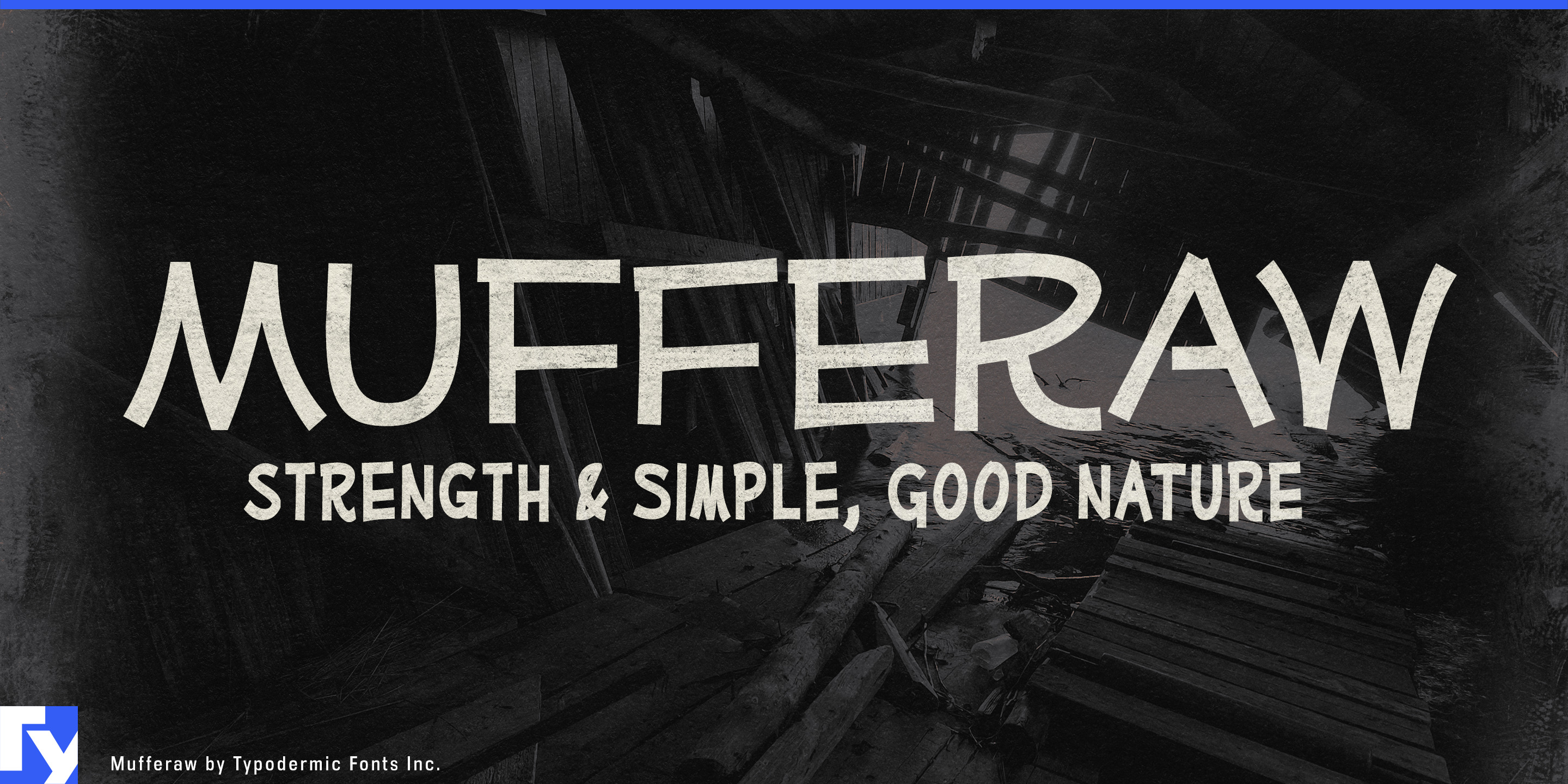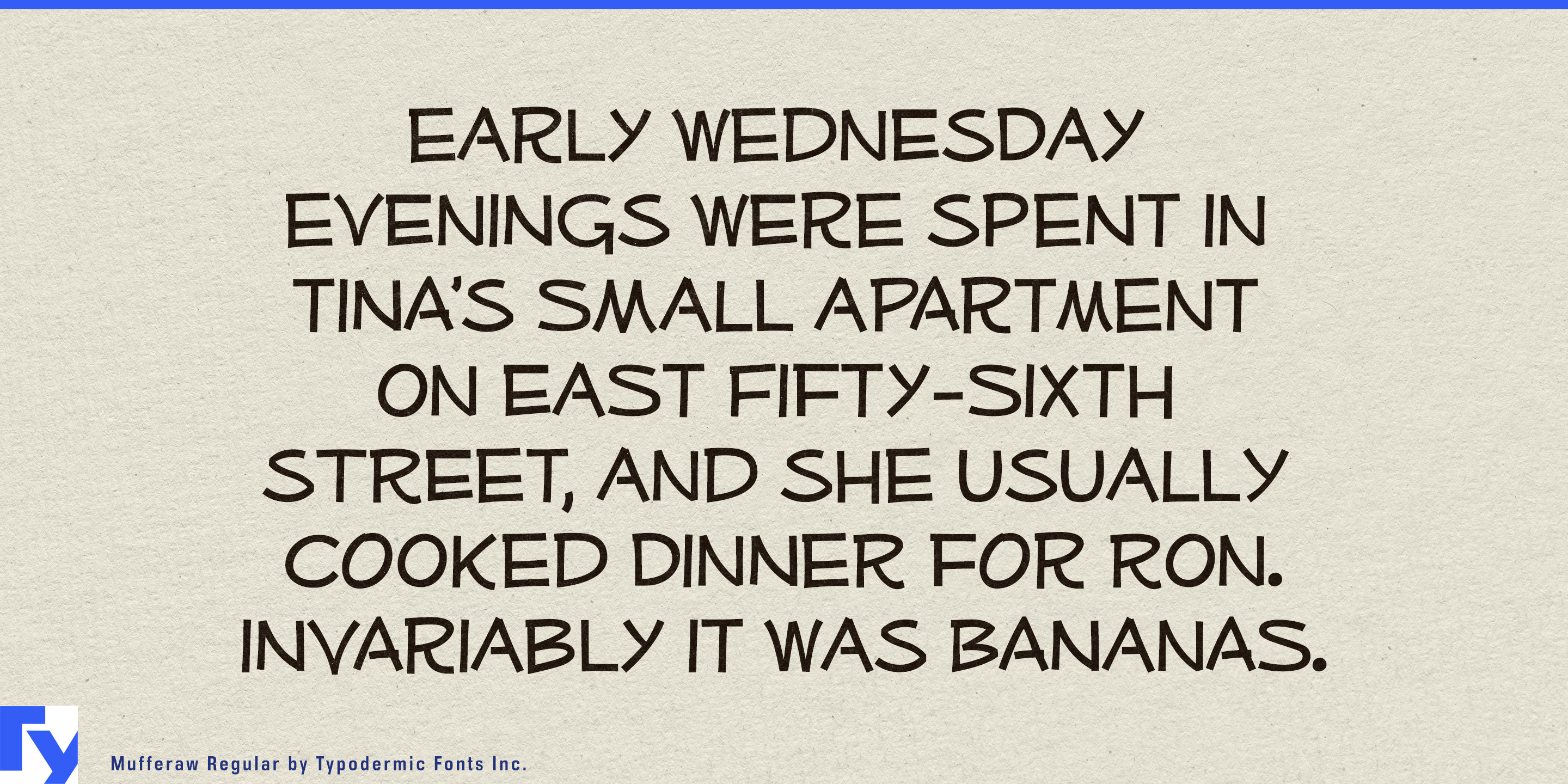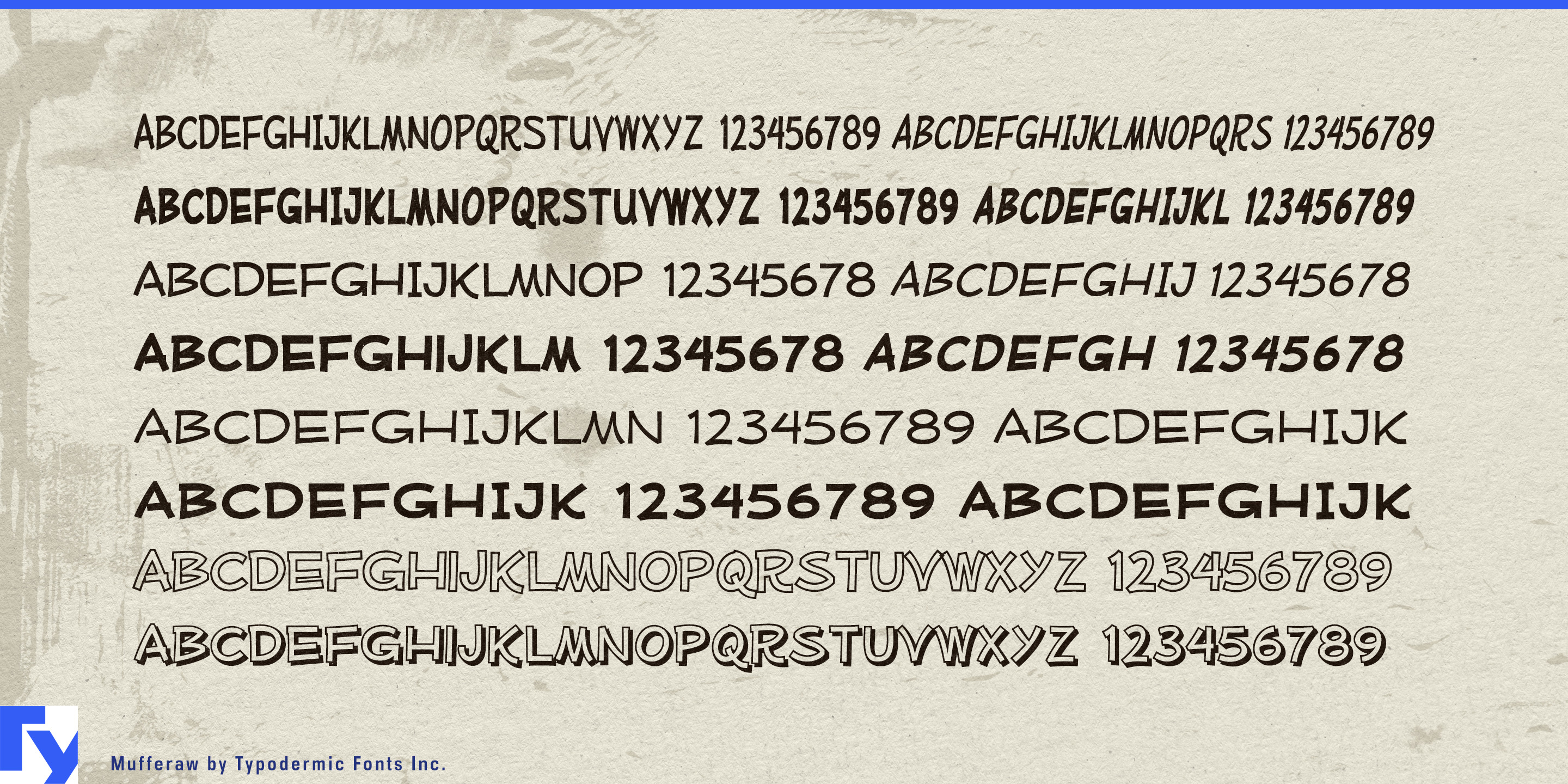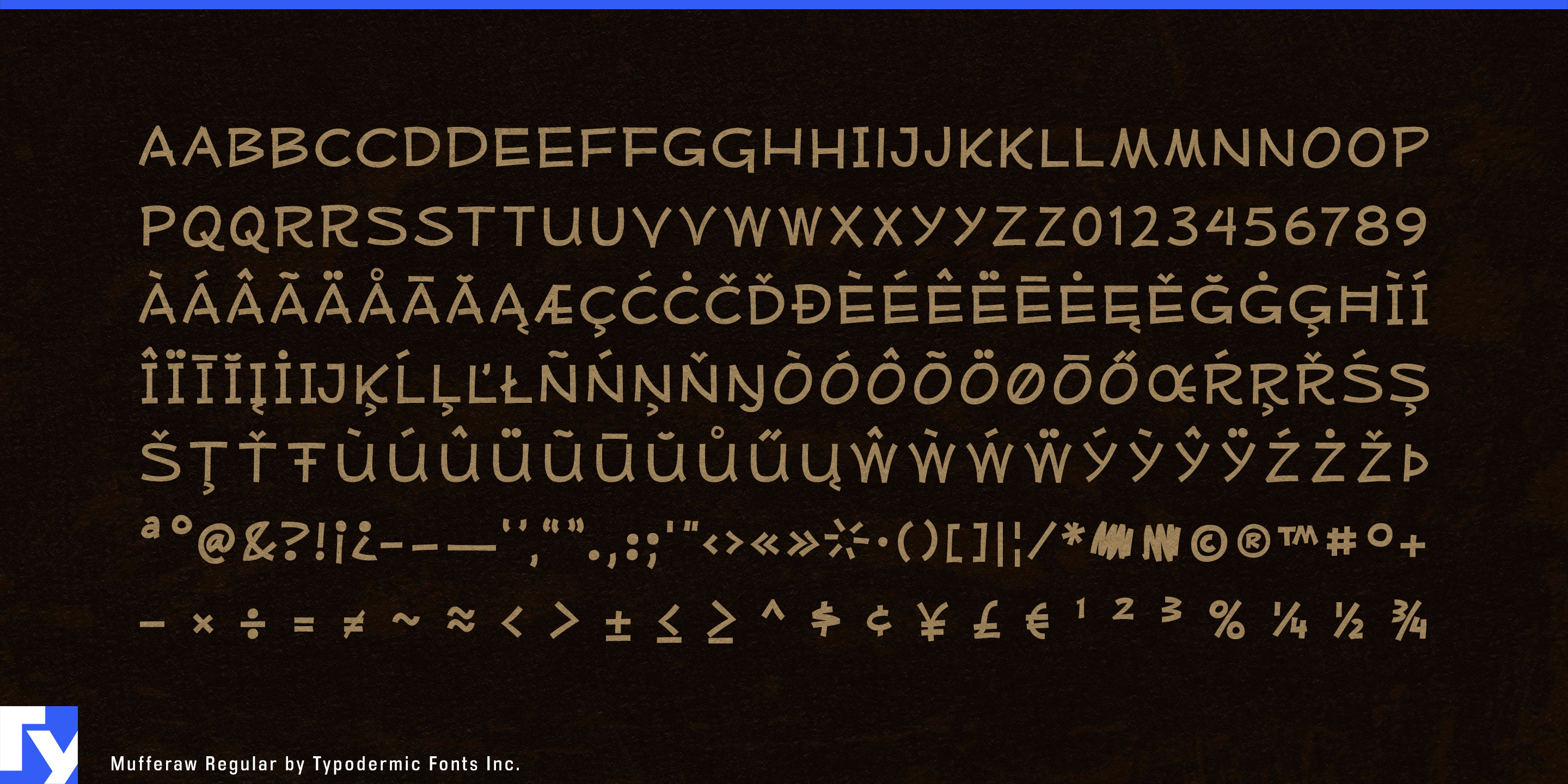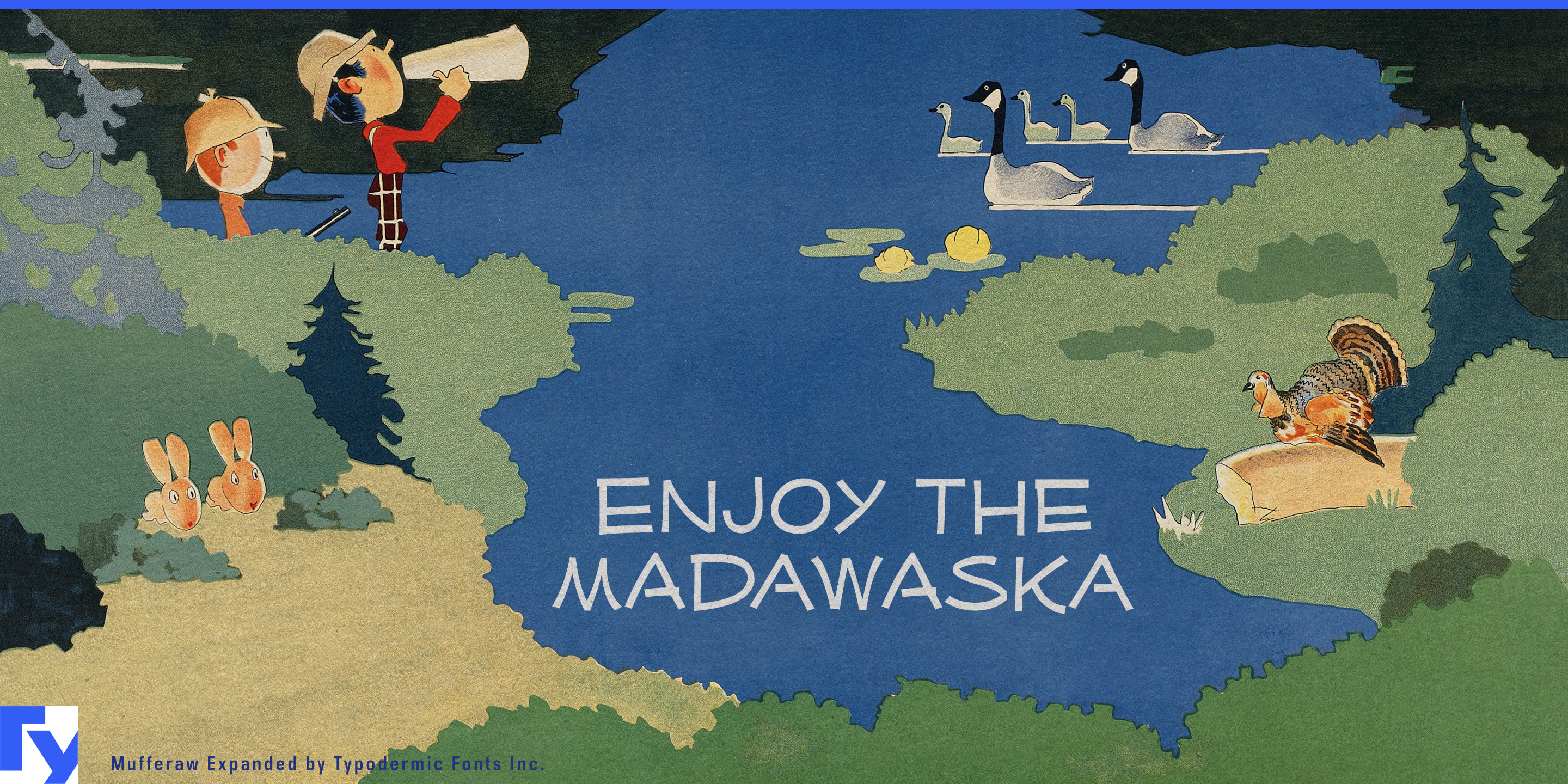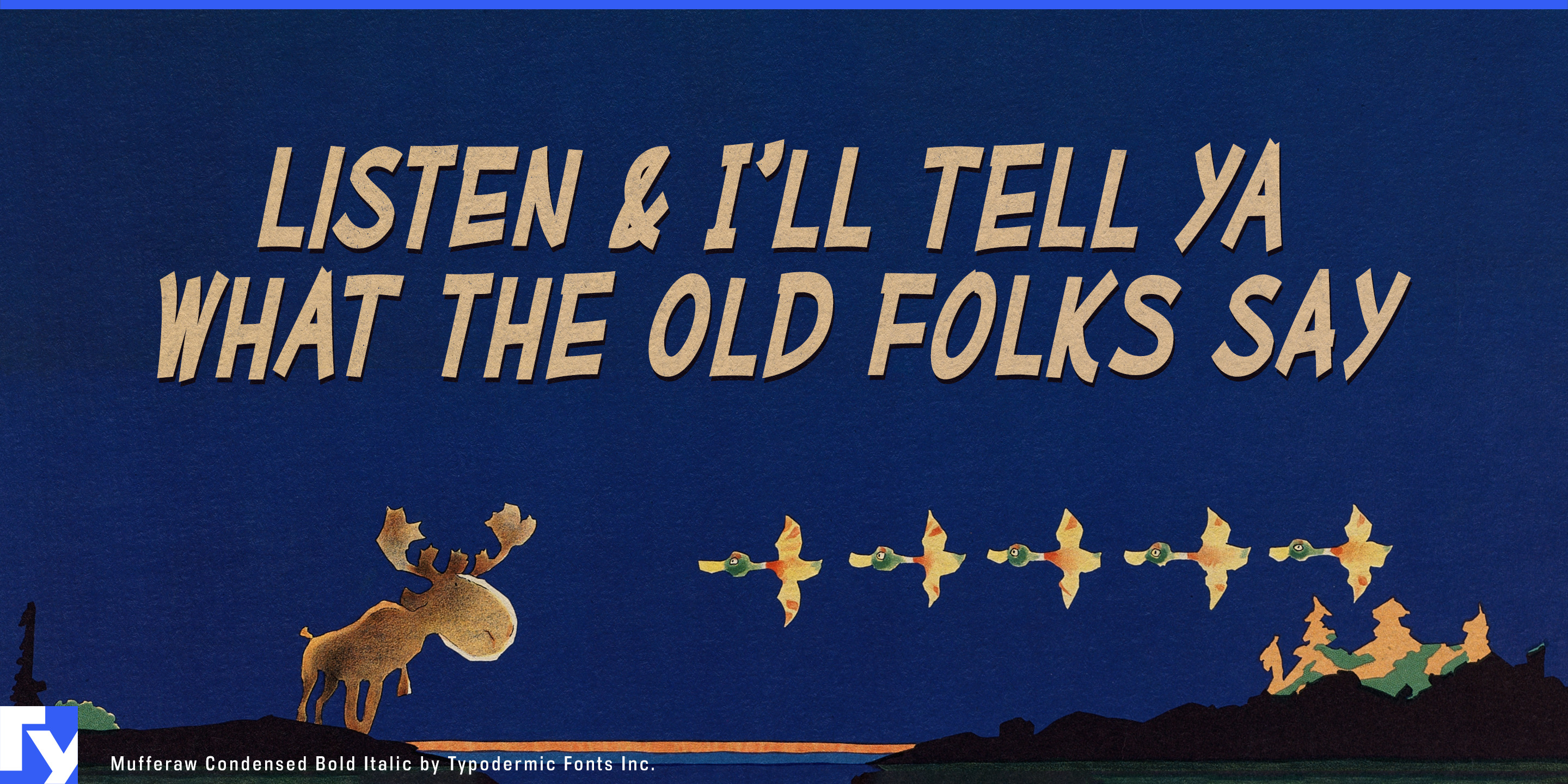
Mufferaw
STEM products for young people have an awkward typographic problem. Give an educational robot or electronics kit the same hard-edged lettering used for professional engineering equipment and the product can feel forbidding. Push too far toward bubbly children’s typography and the technology starts looking trivial. Mufferaw sits between those extremes; informal enough to invite participation, structured enough to belong beside circuitry, mechanisms and diagrams.
Mufferaw began as comic lettering, and that origin still shows in its conversational rhythm. Angular construction, flat terminals and open interiors give the letters a firmer geometric backbone than most casual display faces. Condensed, Regular and Expanded widths, two weights, italics, Outline and Shaded styles let the same voice adapt to very different spaces without turning into a collection of unrelated effects.
Educational robotics, coding hardware, electronics sets and engineering kits are natural territory. Mufferaw can carry challenge names, project titles, section headings and short prompts across packaging, classroom displays, tutorial videos and companion software while a quieter sans handles specifications and detailed instructions. Condensed styles fit longer challenge names into narrow panels; Expanded styles give short product names and achievement graphics more presence.
Science centers, discovery museums and family technology exhibits present the same problem at a larger scale. Experiment names, interactive prompts and exhibit-zone titles need enough warmth to encourage participation without making the science feel unserious. Mufferaw can move from equipment panels to large exhibition graphics while retaining the same recognizable voice.
Educational games and maker media extend that role into screens. Science games, coding adventures and engineering puzzles can use Mufferaw for level names, challenge screens, reward graphics and fictional machines; chapter cards, diagram callouts and experiment names can bring the same approachable structure to instructional video.
Mufferaw’s niche is serious ideas presented with an inviting display voice. Robotics kits, maker systems, science exhibits and educational games can use its comic-derived informality to welcome learners in while its geometric structure stays connected to the thing they are about to build.